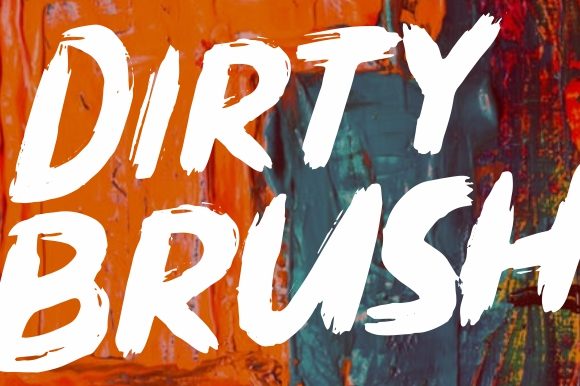
Step into the realm of typographic intrigue with Dirty Brush Font, the ultimate display font that effortlessly blends alluring curves with a refreshing urban flair. Unleash your creative prowess and transform your designs into captivating masterpieces with this stylish script, meticulously crafted to add an irresistible charm to your logo designs, brand identity, handwritten quotes, product packaging, merchandise, and social media posts.
Indulge in the boundless versatility of the Dirty Brush Font, allowing you to express your individuality across a spectrum of projects. Its captivating strokes dance across the page like a symphony of urban energy, adding a touch of sophistication and edge to every design element. From eye-catching logos that demand attention to mesmerizing brand identities that leave a lasting impression, Dirty Brush Font empowers you to create a visual impact that resonates with your audience.
As a special bonus, we've included an array of stunning swashes that amplify the expressiveness of the Dirty Brush Font. These intricate embellishments elevate your designs to new heights, adding a touch of elegance and intrigue that sets your work apart from the ordinary. Let your creativity soar as you explore the endless possibilities of Dirty Brush Font, transforming your design visions into tangible works of art.